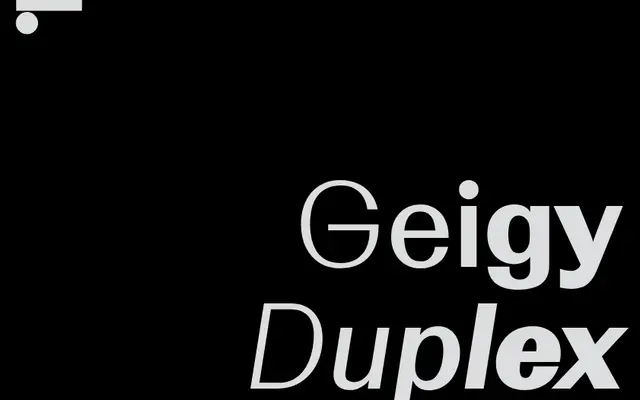
LL Geigy Duplex Var
Lineto · Robert Huber · 2024
A uniwidth variable font by Robert Huber that keeps glyph spacing fixed across its full weight and slant range, preventing text reflow when axes change.
Based on LL Geigy, this variable font applies the duplex model — a concept from hot-metal typesetting — to a contemporary variable format, ensuring glyphs occupy identical space from Light to Black and from Roman to Italic. That fixed-width behaviour makes it particularly suited to screen interfaces where weight or style transitions occur on hover, and to animated type where gradual axis changes can produce optical effects without layout shifts. Font engineering and mastering was handled by Alphabet, Berlin.
Described by Lineto as an eccentric sans serif; the duplex variable format and geometric-yet-quirky character set it apart from conventional grotesque or humanist classifications.